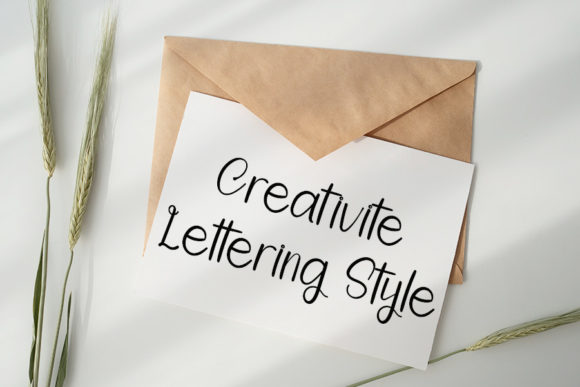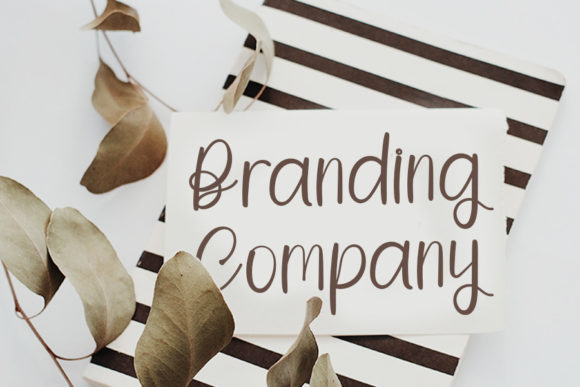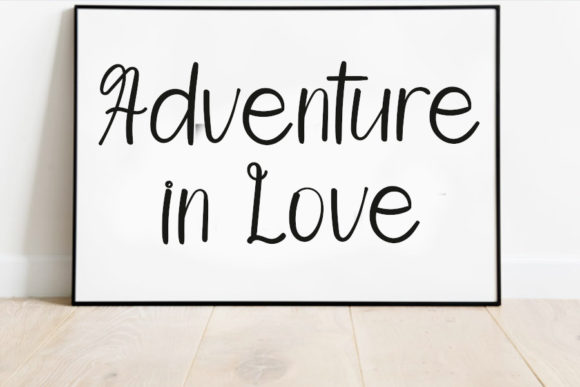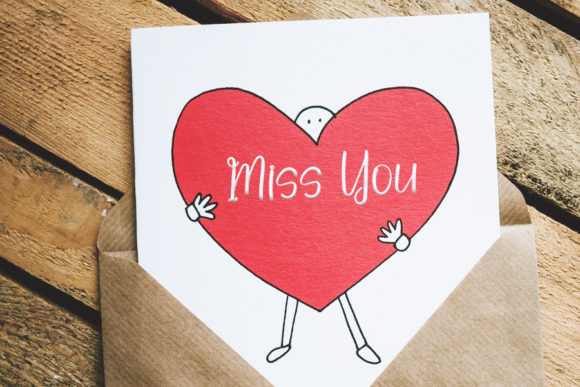
About Springlove Font
Springlove is a lovely and timeless handwritten font that adds a touch of charm and elegance to your designs. Whether you’re creating eye-catching logos, branding materials, or quotes, this font is the perfect choice to make your designs come alive.
Each letter in Springlove has a unique and beautiful touch, showcasing the craftsmanship and attention to detail in its design. The timeless quality of the font gives it a classic appeal that will withstand the test of time, ensuring your designs remain captivating and relevant.
Springlove is particularly well-suited for creating eye-catching logos that make a lasting impression. Its handwritten style brings a sense of authenticity and personality to your brand identity, setting you apart from the competition. It also adds a touch of elegance to branding materials, such as business cards, stationery, and packaging, elevating your brand’s visual identity.
Quotes and inspirational messages also come to life with Springlove. Its distinctive letterforms and charming strokes add depth and meaning to your words, making them visually appealing and engaging for your audience.
Embrace the lovely and timeless nature of Springlove and let it transform your designs into captivating and unforgettable creations. Incorporate this font into your projects, and you’ll witness how it adds a touch of charm and elegance that truly brings your design vision to life.